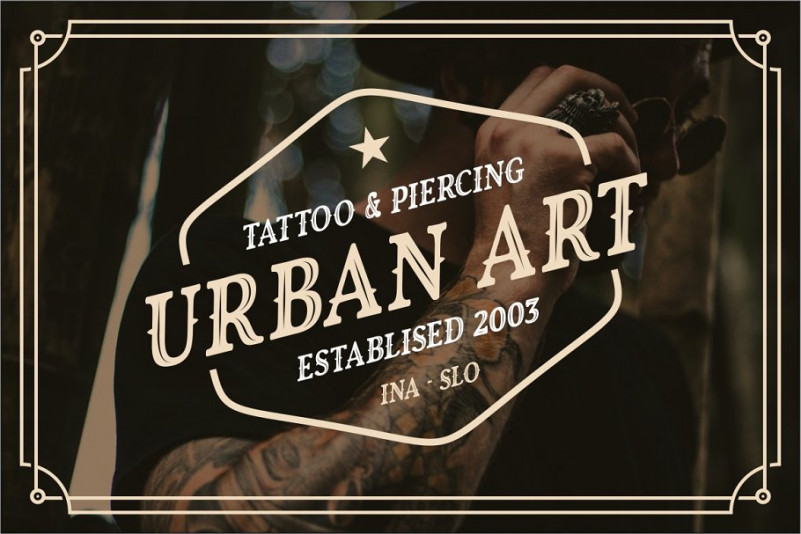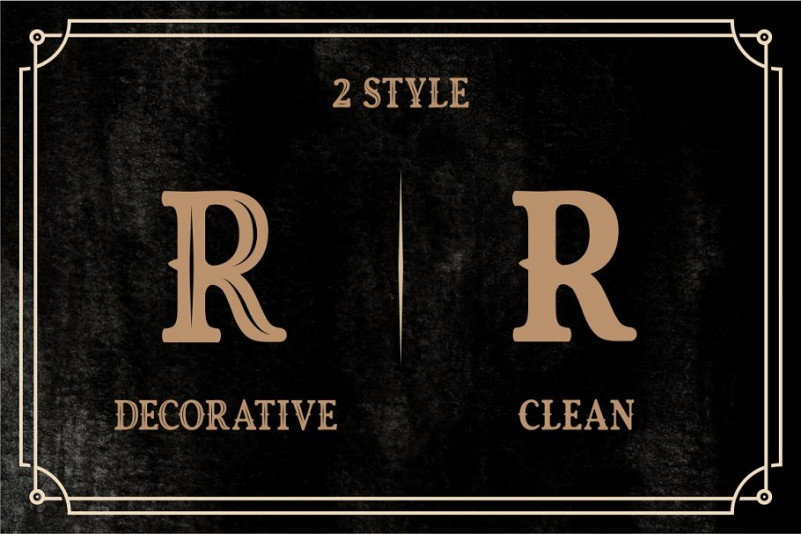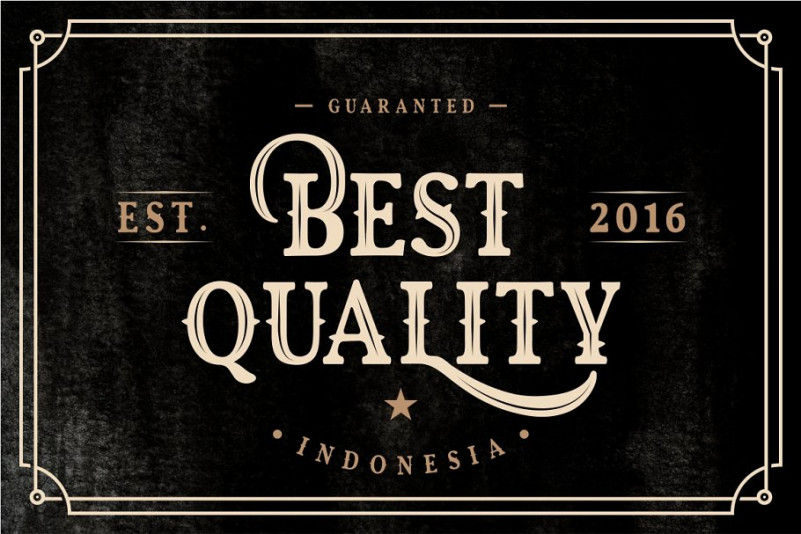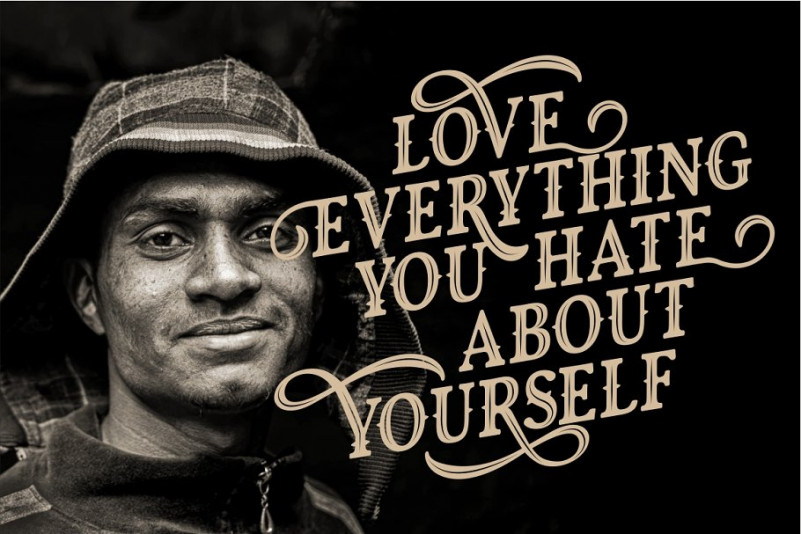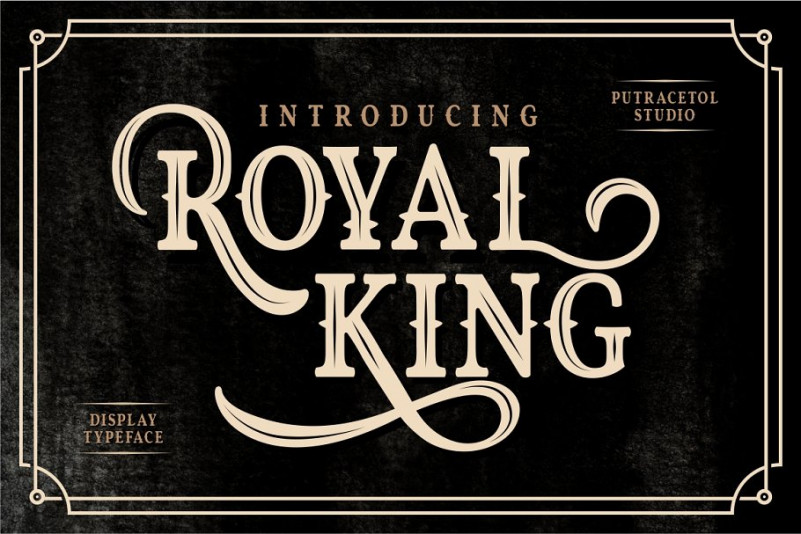
Royal King Typeface
This is a vintage serif typeface. It’s perfect for you to give your design a vintage touch. This is an original vintage font, perfect for give your design an authentic touch. Presenting Royal King Font. Royal King Typeface is great for any kind of display purpose from logos, Tshirt, apparel, quote, handwritten quotes, product packaging, tittle header, poster, merchandise, social media, labels, branding & greeting cards.